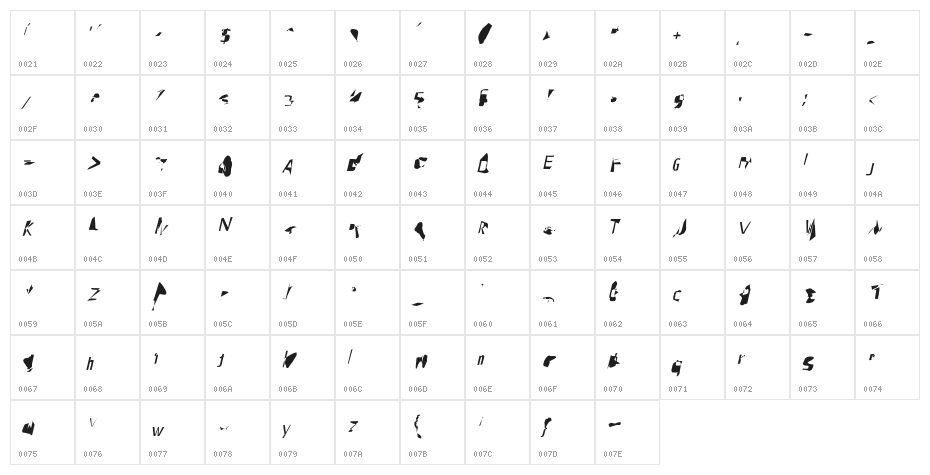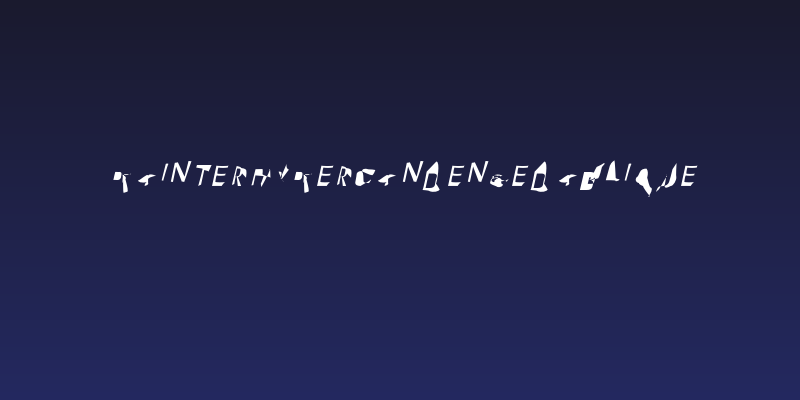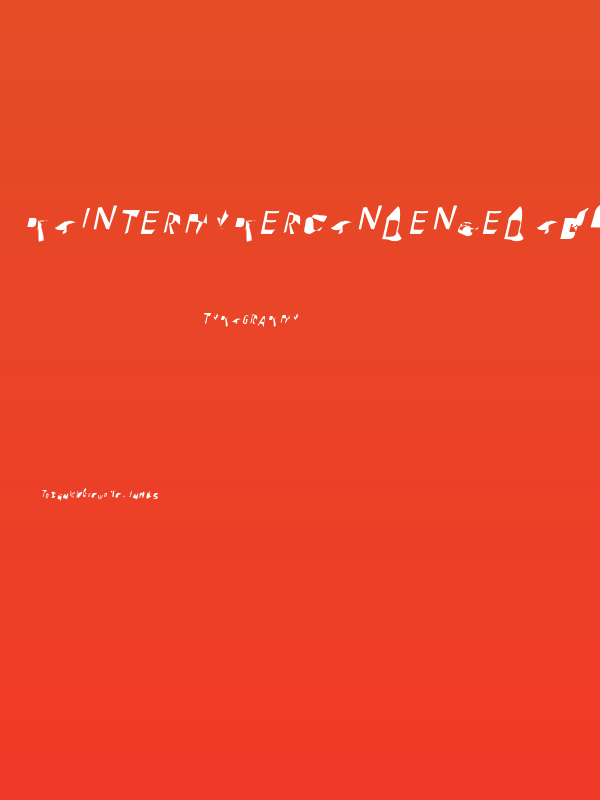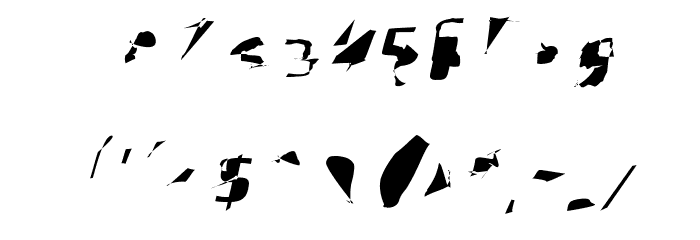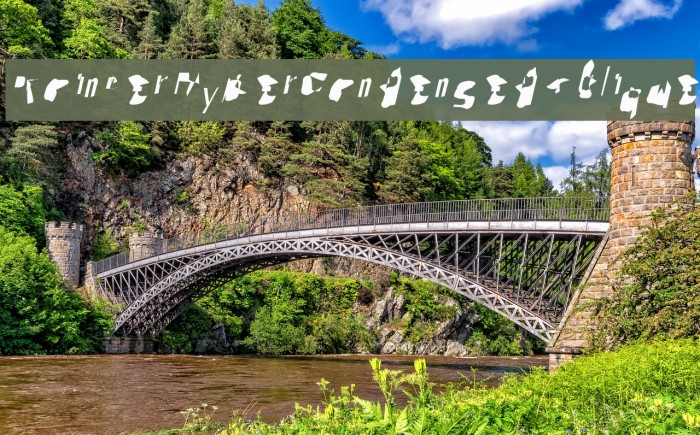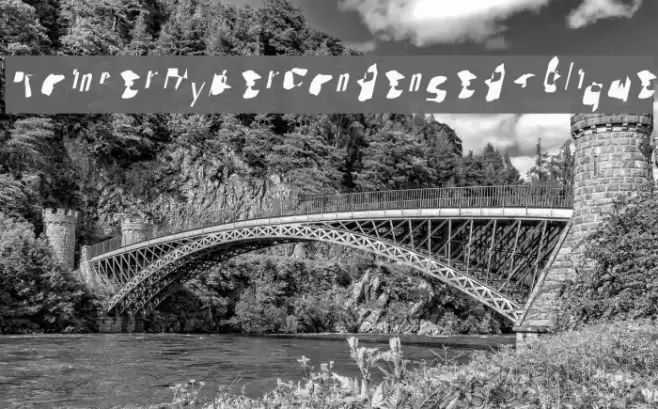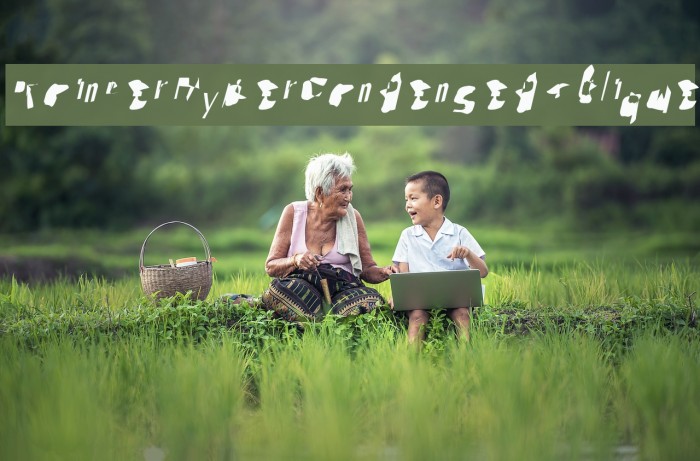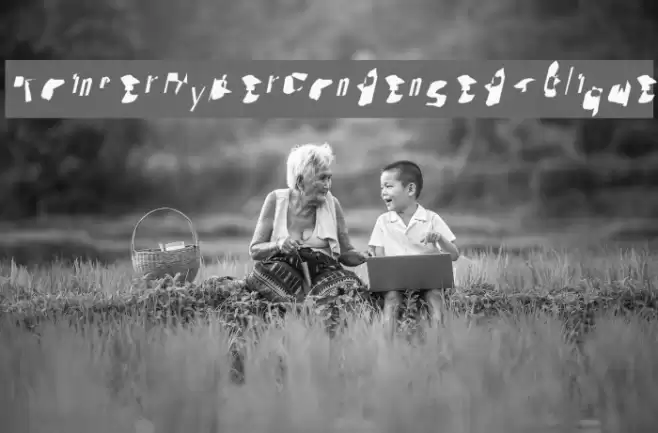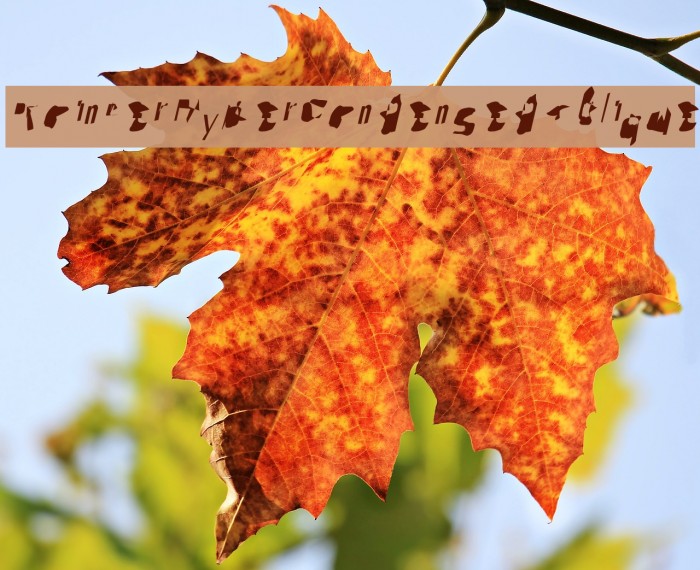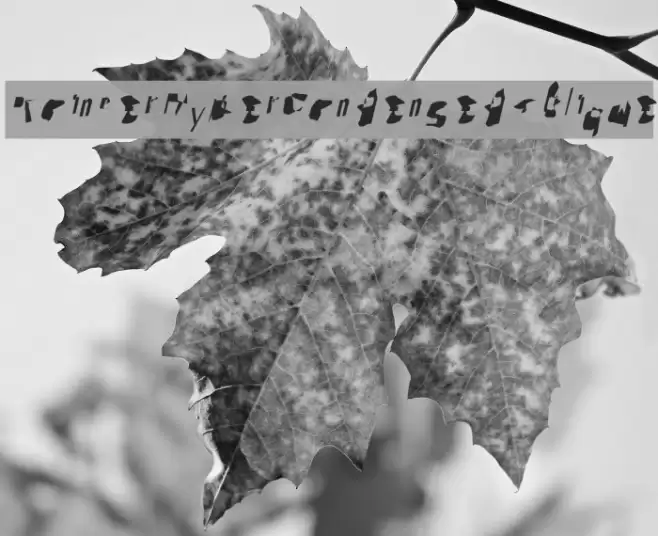
Pointer HyperCondensed Oblique Font
Pointer HyperCondensed Oblique Description
This font presents a highly abstract and fragmented design, characterized by its sharp, angular forms and dynamic oblique orientation. The characters are heavily distorted, creating a sense of movement and energy. The strokes are irregular, with varying thicknesses that contribute to a chaotic yet intriguing visual effect. The overall appearance is avant-garde, making it suitable for projects that aim to capture attention and convey a sense of modernity and innovation. The font's hyper-condensed nature results in extremely tight character spacing, enhancing its compact and edgy look. Despite its unconventional style, it maintains a level of legibility that allows for creative applications.
| Proposed Projects | Ideal for avant-garde posters, experimental branding, and modern art installations. |